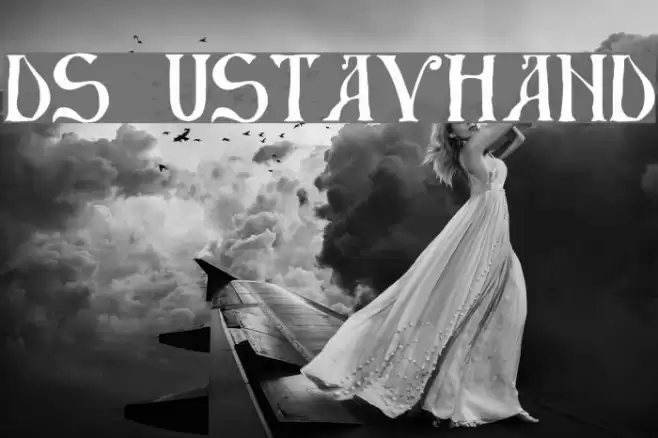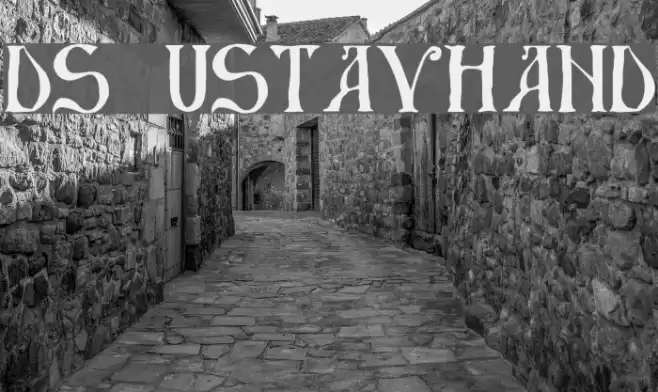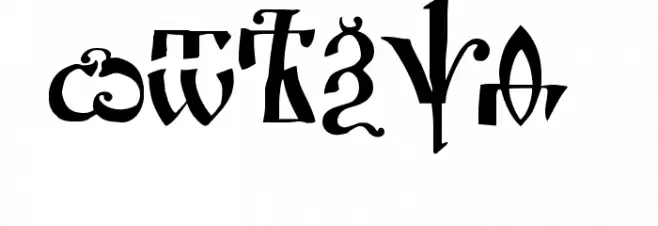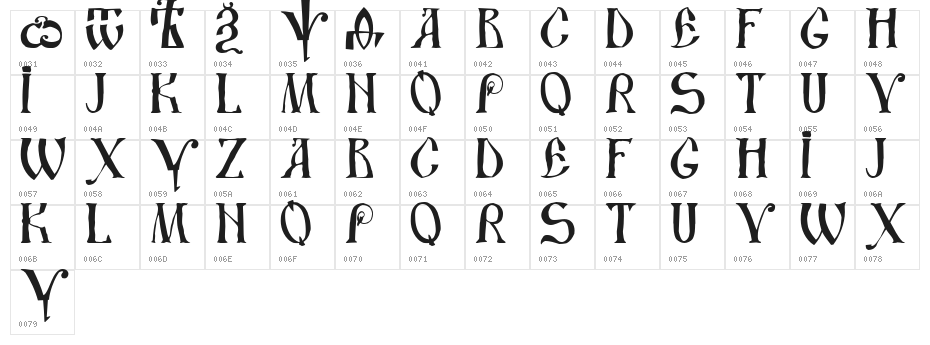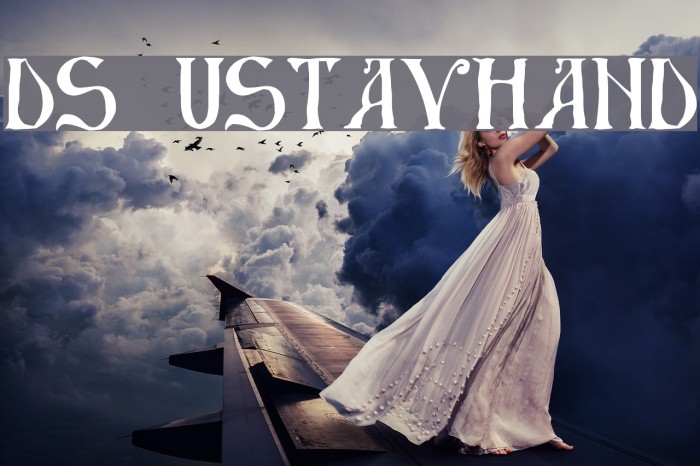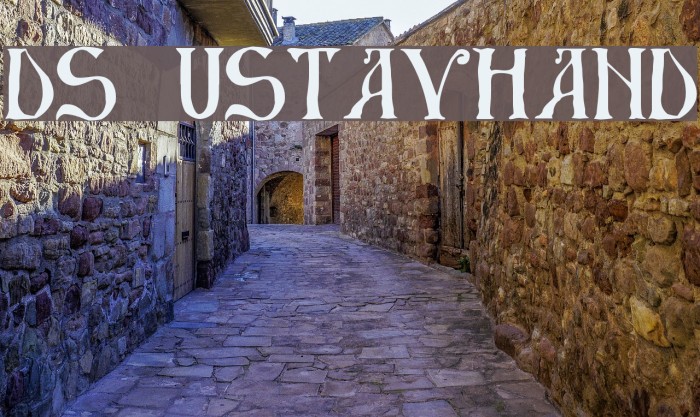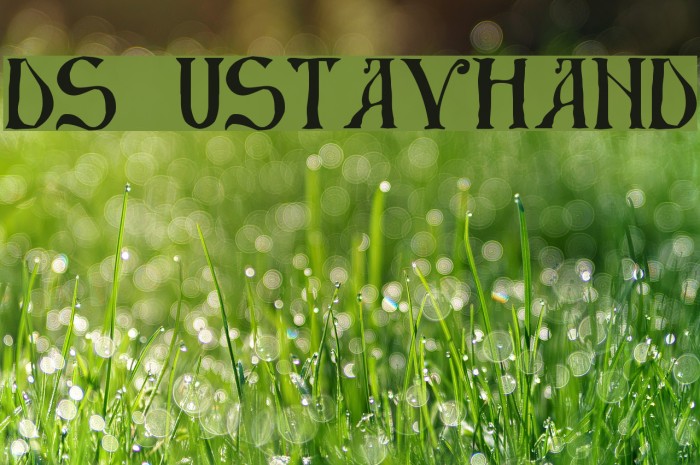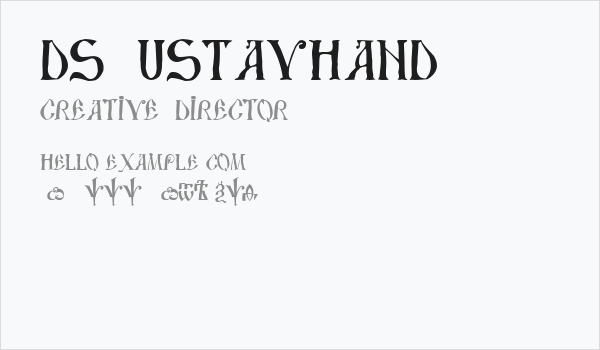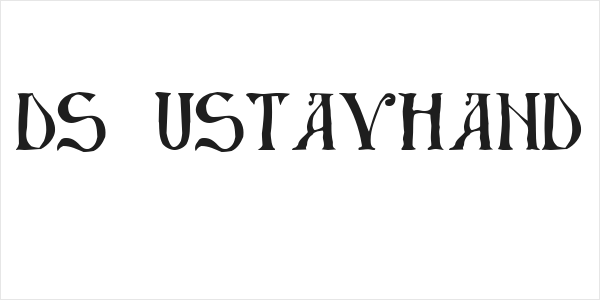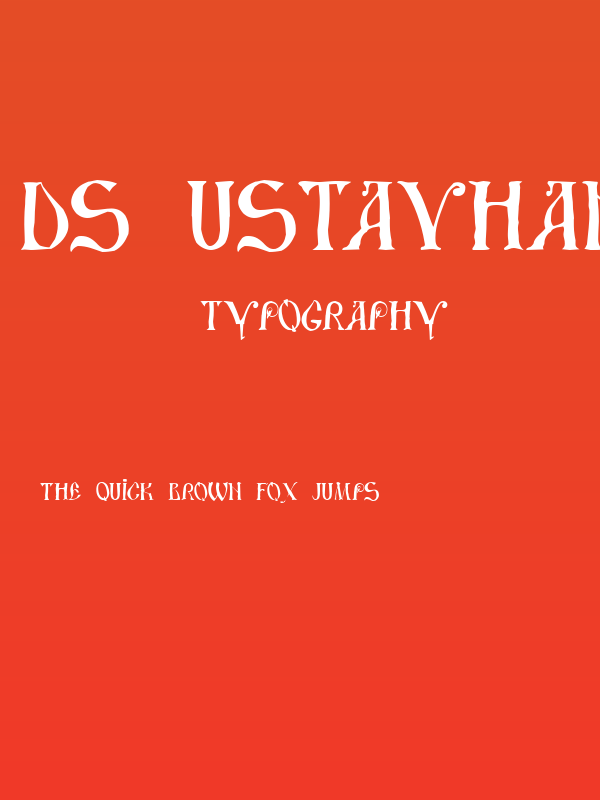
DS UstavHand Font
DS UstavHand Description
This font exhibits a highly decorative and intricate style, reminiscent of historical or medieval script. The uppercase letters feature elaborate serifs and flourishes, with a distinct Gothic influence. The lowercase letters maintain the ornate style, with unique curves and angles that add to the font's complexity. The numbers and special characters are equally stylized, ensuring a cohesive look throughout. This font's detailed design makes it stand out, capturing attention with its artistic flair and historical charm.
An ornate, Gothic-inspired decorative font with intricate details from Capitals fonts.
- Proposed Projects: Ideal for historical-themed projects, fantasy book covers, medieval event invitations, or any design requiring a touch of elegance and antiquity.
- Overall Style: Vintage
- Use Case: Logos, Headlines, Decorative text